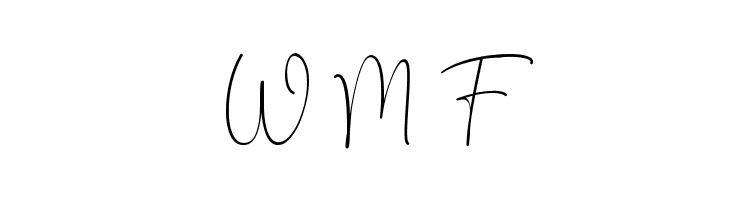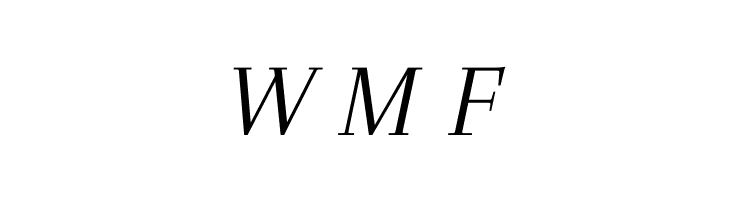
• appo paint
A bold, brushstroke font with an artistic and dynamic style.
• Apricity
• Apricity Bold
• April Showers Medium
A playful, hand-drawn font with tall, narrow characters and whimsical details.
• Aprilliant
An elegant, flowing script font with smooth, cursive lines and graceful curves.
• aquamarine Medium
A playful, casual handwritten font with flowing, organic lines.
• AQZ crew
A bold, playful handwritten font with rounded, irregular letterforms.
• Arabic Cabo Font
• aracnoide
A decorative, horror-themed font with sharp, dripping strokes.
• Arapey Italic
An elegant serif font with a classic italic style and smooth, flowing curves.